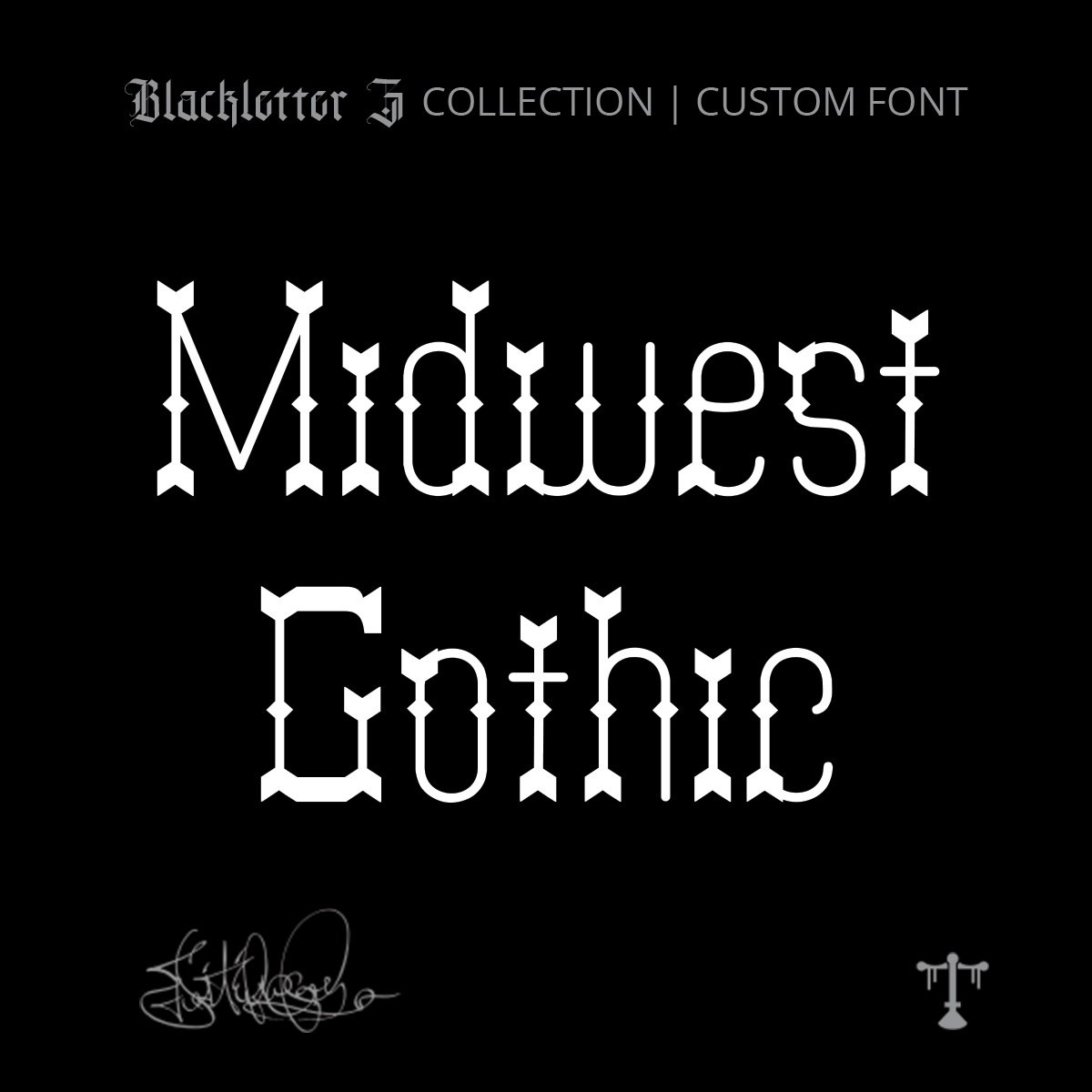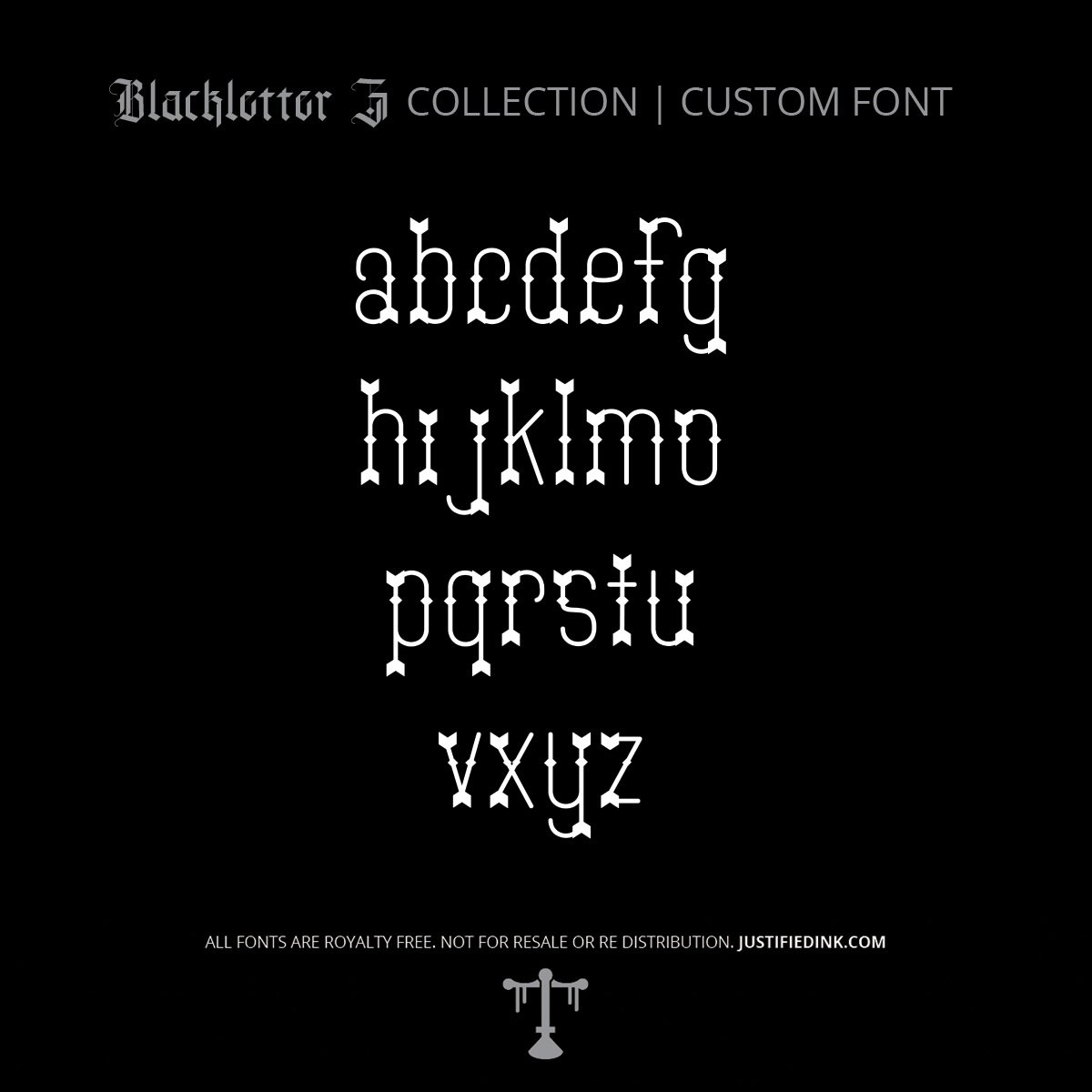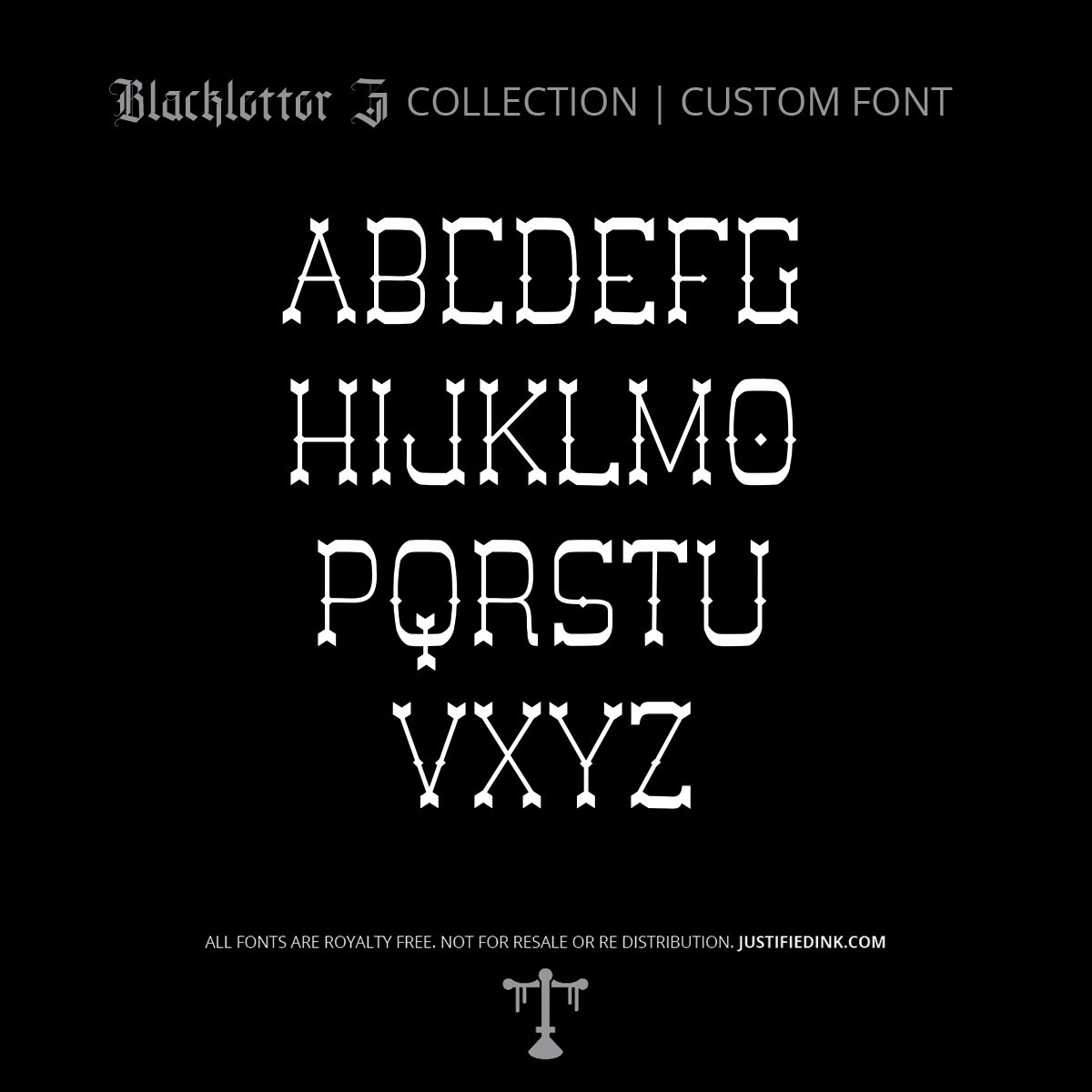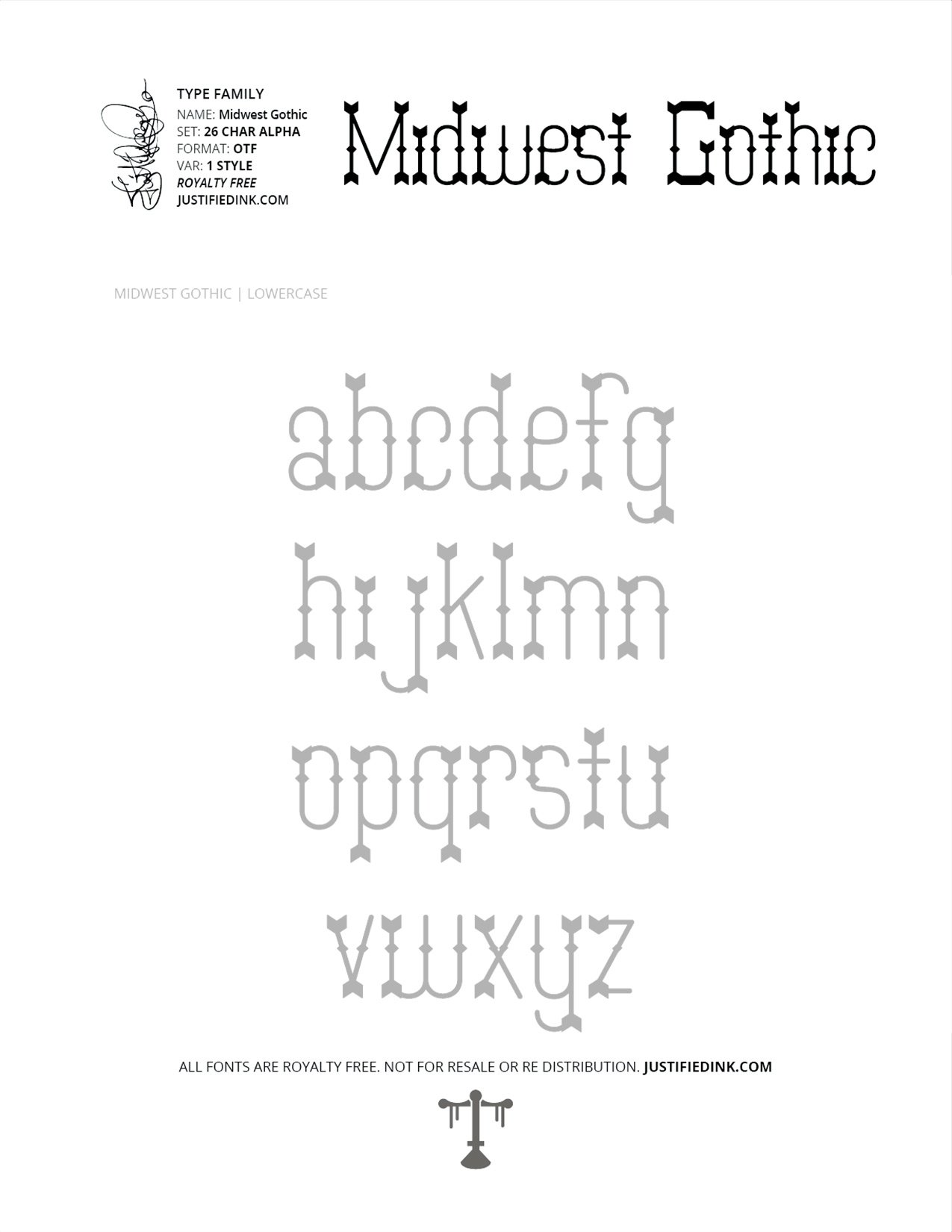
Midwest Gothic (1 style) - Custom Font
Western Steel and Gothic Form
Midwest Gothic blends the grit of the frontier with the discipline of gothic form. Clean, structured letterforms are edged with arrow-like serifs, giving each character a sense of direction and intent. It’s a style that feels both restrained and dangerous—like a wanted poster carried on the wind.
Every detail in Midwest Gothic is built with purpose. The fletched serifs echo arrows in flight, while the balance of straight and rounded forms keeps the font grounded and readable. It carries the tension of open land and unseen movement—something precise, controlled, and always aimed at its mark.